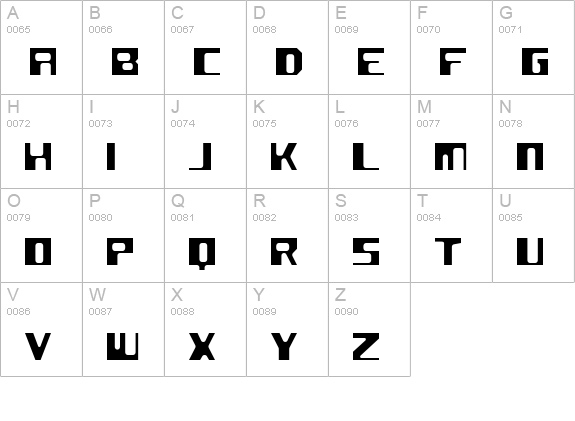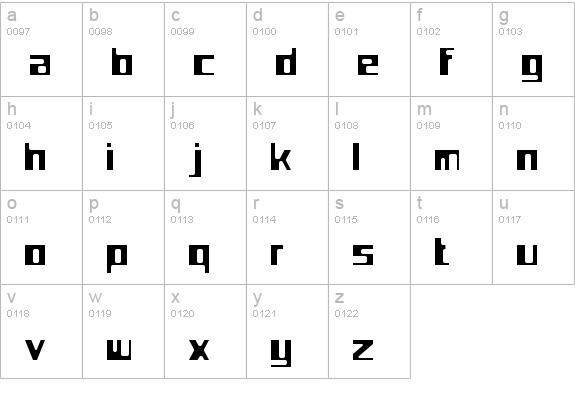
Flotsam Performance Font Details
Introducing Flotsam Performance font, a bold and dynamic typeface designed to make a powerful statement in your projects. With its clean lines and modern aesthetic, Flotsam Performance exudes confidence and sophistication. This versatile font is perfect for a wide range of design applications, from posters and logos to packaging and branding. What sets Flotsam Performance apart is its unique blend of elegance and strength, making it a standout choice for designers looking to make an impact. Its sharp edges and geometric shapes give it a contemporary edge, while its bold weight commands attention and leaves a lasting impression. And the best part? Flotsam Performance is completely free to download at FontsMarket.com. That's right, you can access this remarkable font at no cost and elevate your design projects with its striking presence. Don't miss out on this opportunity to add Flotsam Performance to your font collection and take your designs to the next level. Download it today and see the difference it can make in your creative endeavors.